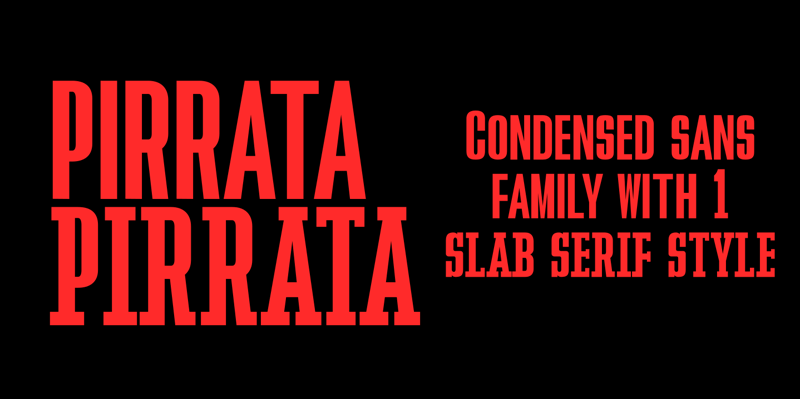
Font name: | Pirrata |
Author: | 4RM Font |
Note by 4RM Font | |
Inspired by retro posters, Pirata font brings a touch of retro aura to each character, made with 2 types of sans serif and slab serif, suitable for use in any retro-themed graphic design, especially posters. Note of the author ********************************************************* -This Pirrata font is licensed for FREE PERSONAL USE -Here's a link to purchase a commercial use license : https://www.youworkforthem.com/font/T15341/pirrata ********************************************************* |